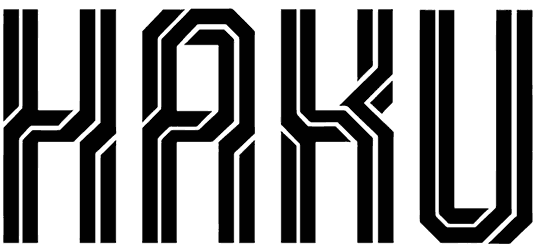
Haku Font
Giving your content an abstract look isn’t that hard if you find the right font for it, something like Haku. This gaming font creates this obscure visual effect with two lines that are twisted in each other, which gives it uniqueness, making it perfect for business cards, games, movies, and logos.
This font supports your project with a collection that only doesn’t contain the lowercase and punctuation marks, but is still powerful enough to do the job.